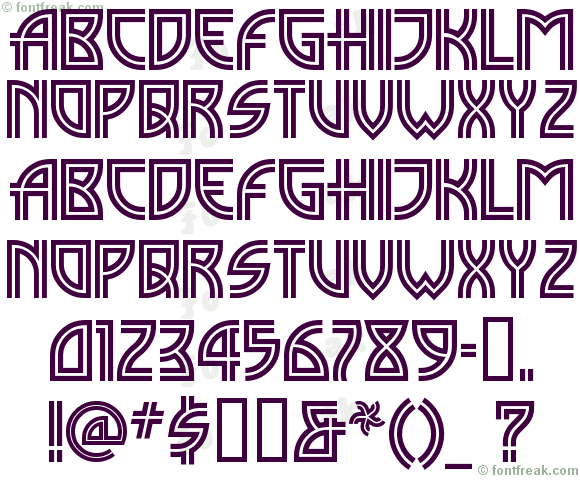
MadisonSquare Incised
About MadisonSquare Incised
MadisonSquare Incised, designed by Nick Curtis in 2001, is a striking display font that falls within the decorative category. Its unique incised style features bold, geometric letterforms that exude a modern yet timeless aesthetic. The strokes are thick with a notable contrast, creating a robust appearance that captures attention instantly. The spacing is well-considered, allowing each character to breathe while maintaining a cohesive ensemble. The decorative elements of the font are accentuated by the incised cuts, which add depth and dimension, making it visually intriguing.
This font is particularly well-suited for a variety of creative applications. It shines in areas like wedding invitations, where its boldness paired with elegance can set a sophisticated tone. Additionally, MadisonSquare Incised is an excellent choice for movie posters, as its striking visual presence can effectively convey drama and excitement. Restaurant menus can also benefit from its unique character, helping to create an inviting atmosphere that stands out to patrons. Furthermore, it works beautifully for branding projects, offering a distinctive look that can make a small business memorable.
The target audience for MadisonSquare Incised includes graphic designers, small business owners, and content creators seeking to elevate their projects with a font that combines modernity and creativity. Its versatility makes it a valuable asset for those looking to make a lasting impression.
What truly sets the MadisonSquare Incised font apart is its ability to blend contemporary design with a classic feel. The incised details provide a unique twist that can transform ordinary text into a focal point, making it a fantastic choice for anyone looking to add a touch of sophistication and flair. Explore your creativity with the MadisonSquare Incised font free download today and experience the possibilities it offers.